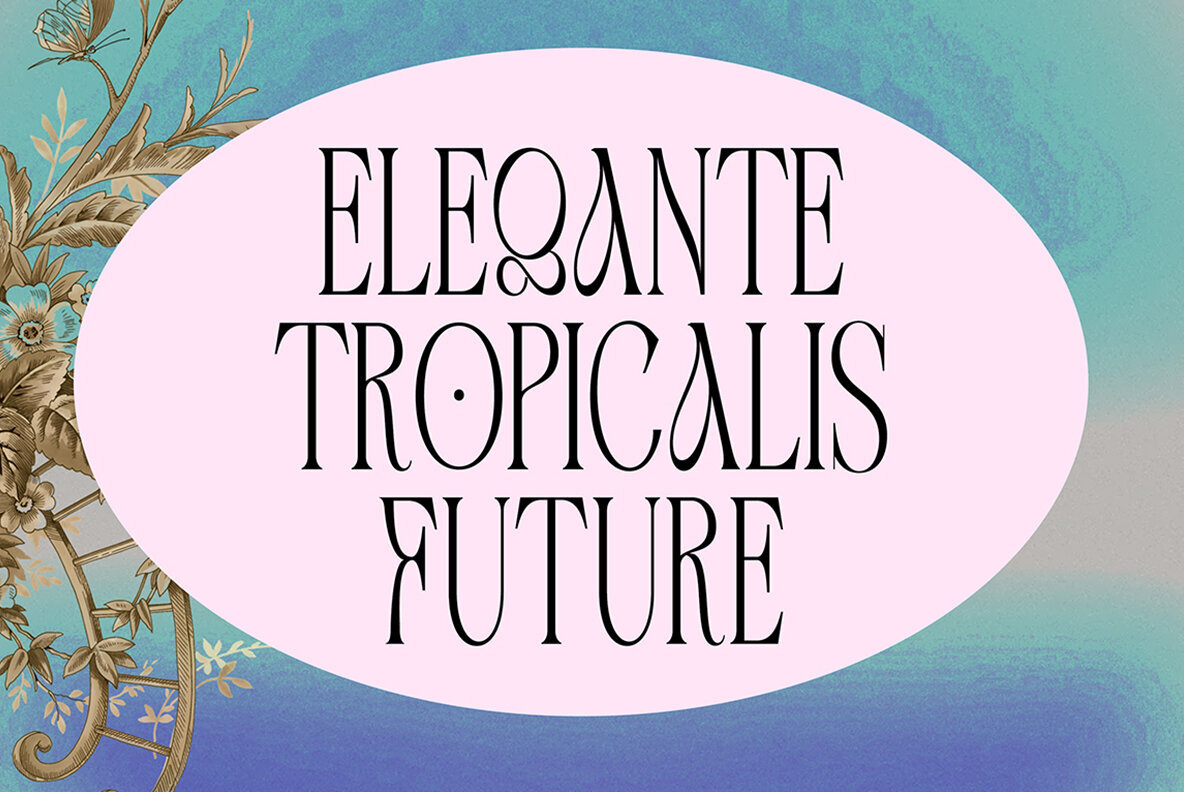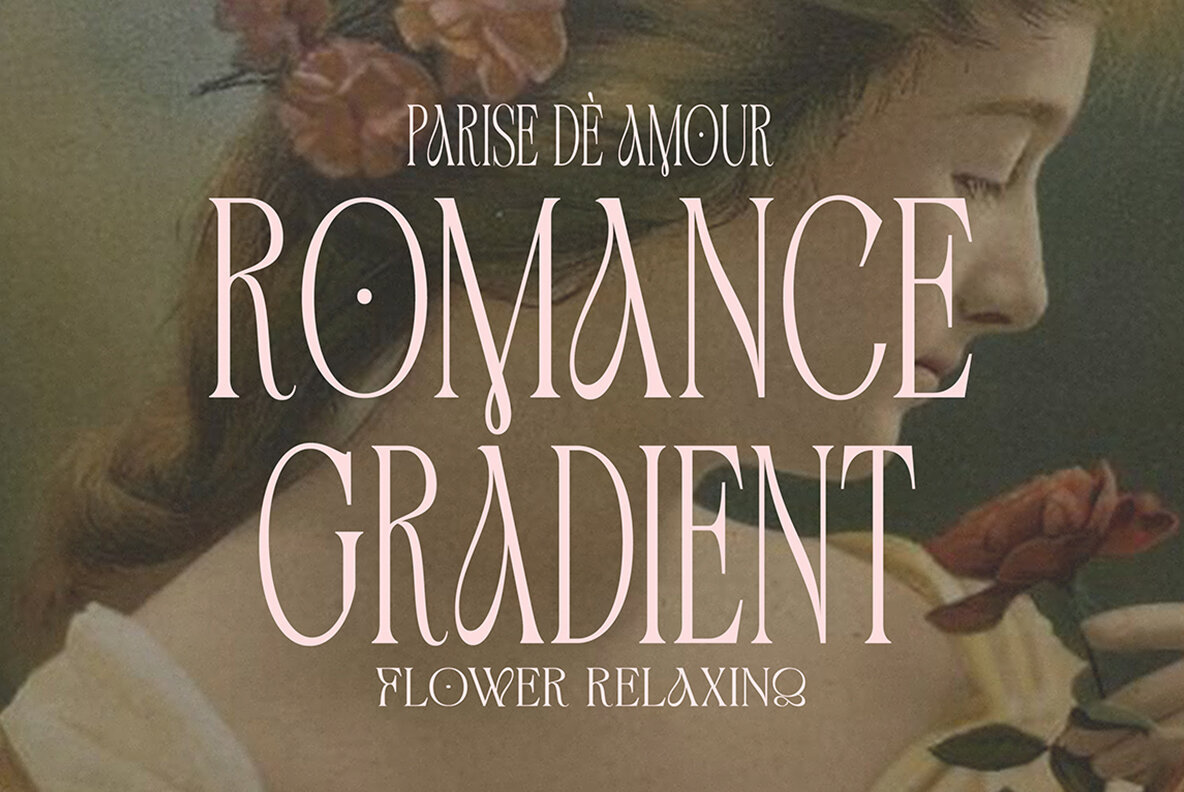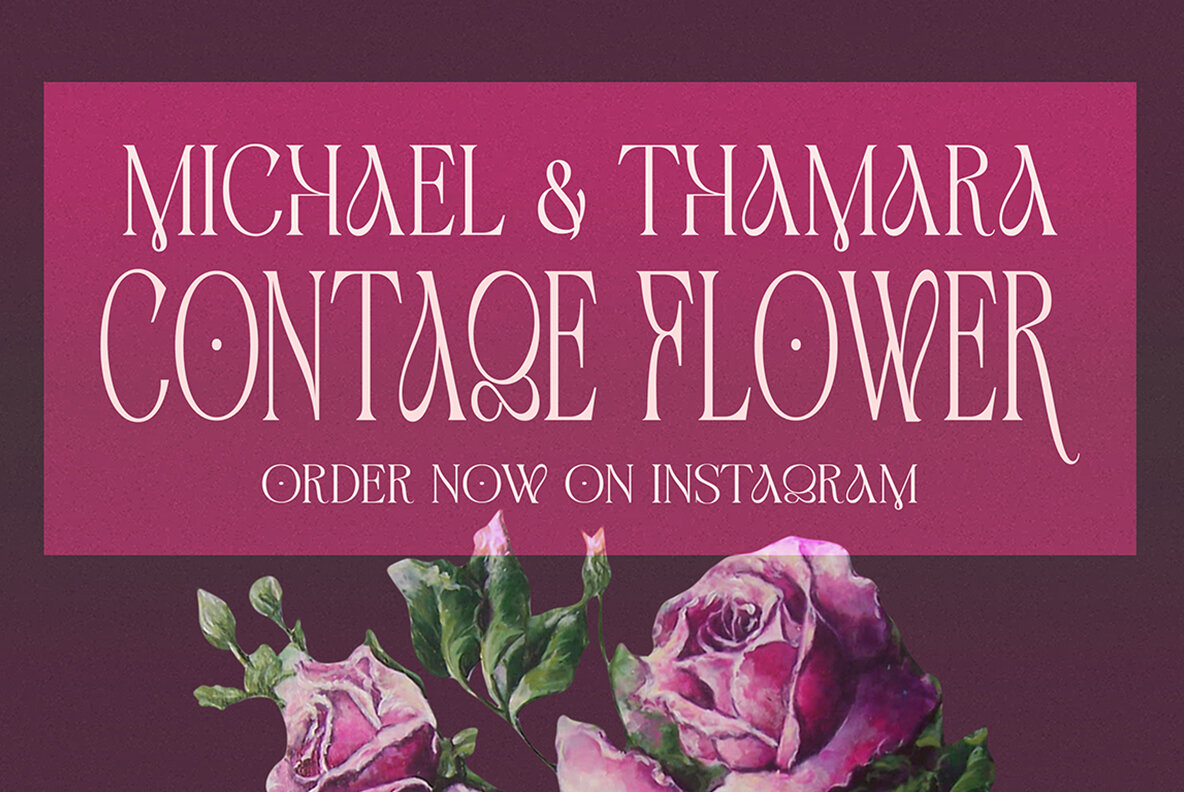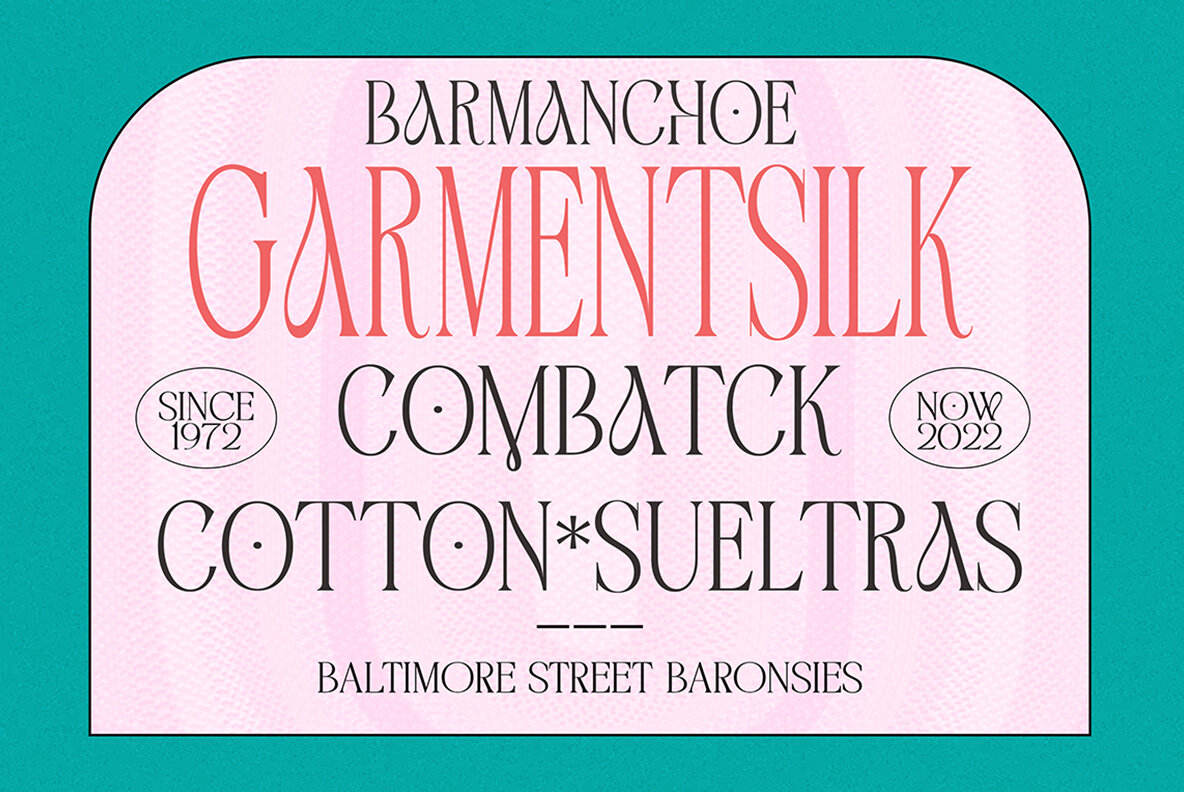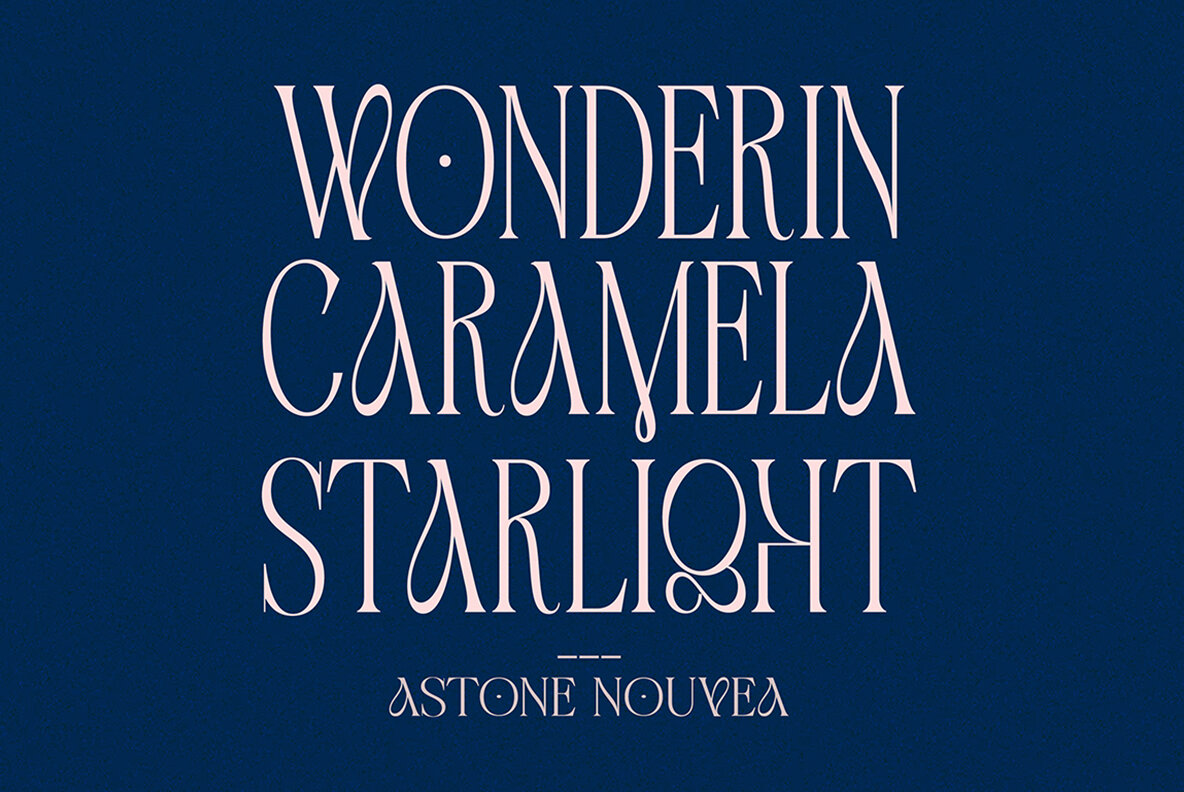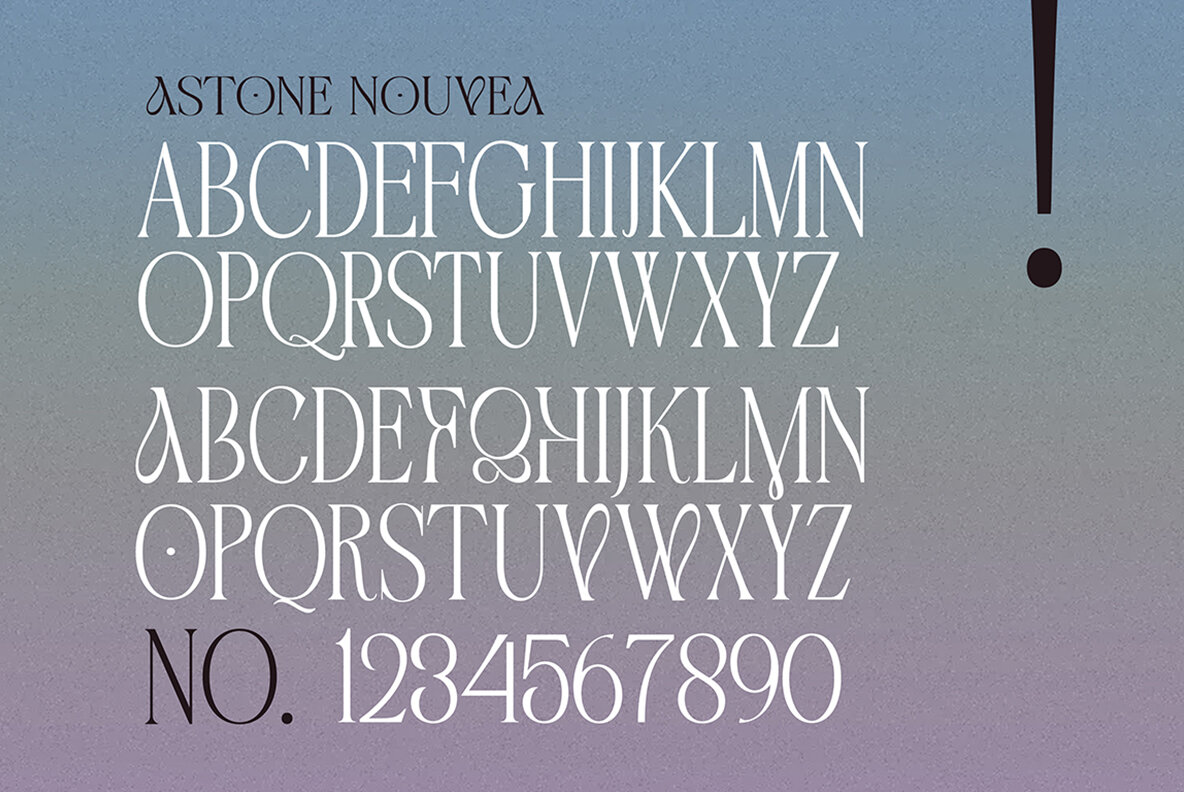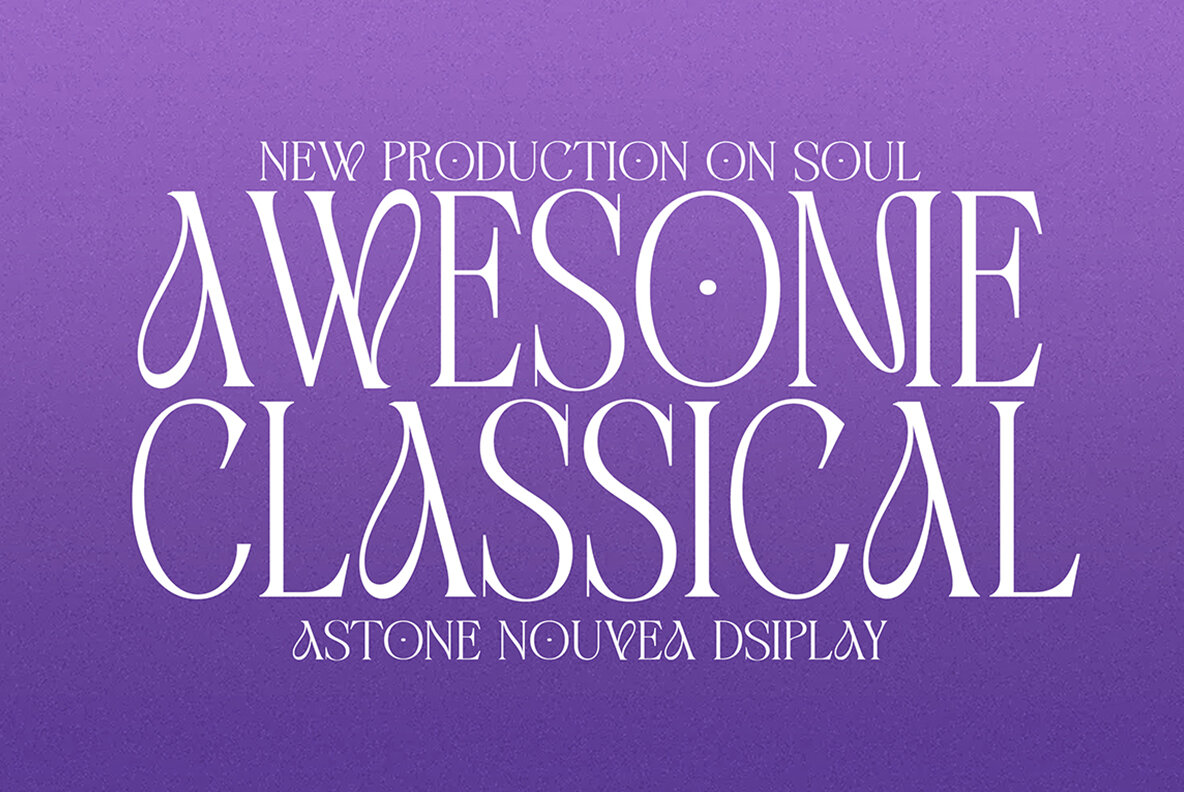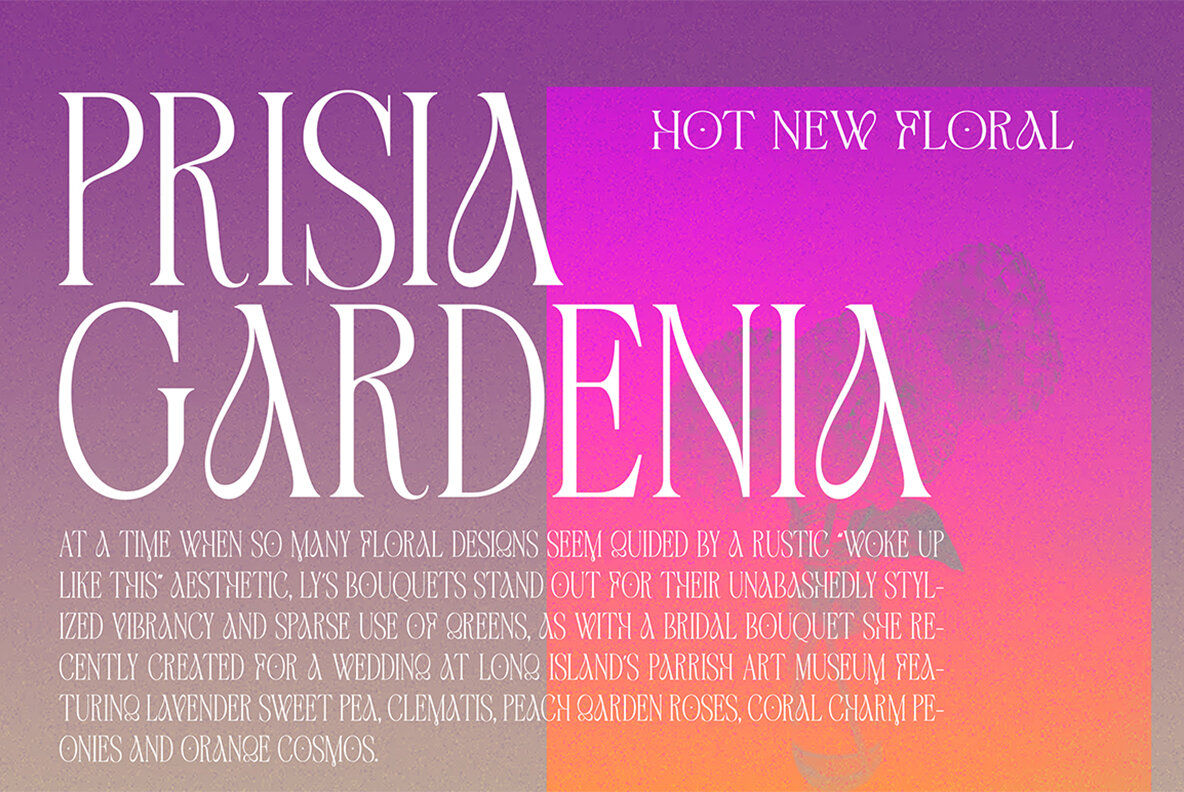
Astone Nouvea Font
Astone Nouvea Regular
Astone Nouvea is a uniquely elegant font, ideal for creating standout brand and logo designs. Craft logos that fulfill your clients' desires for unique yet elegant styles. Astone Nouvea provides the perfect blend of sophistication and distinctiveness, ensuring your brand identity appears both classy and memorable. This font is particularly well-suited for: Embrace this refined font and elevate your design projects with a touch of class.Astone Nouvea: Elevate Your Branding with Elegance